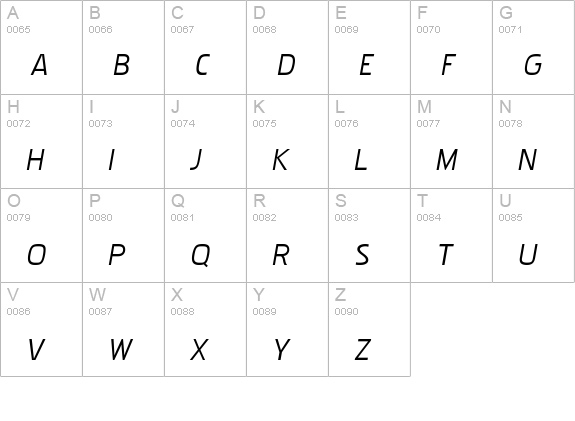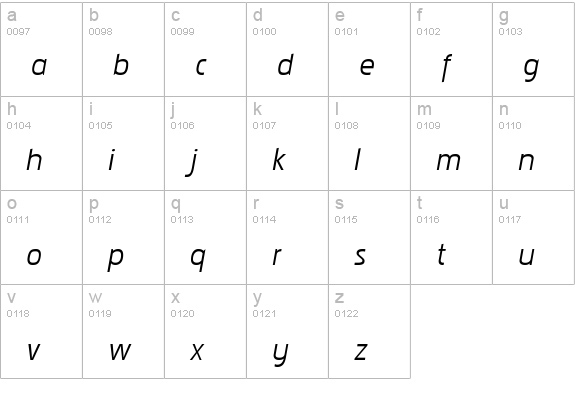
Pakenham Xp Italic is a distinctive, italic variant in the Pakenham typeface family \xE2\x80\x94 well suited to design and typography projects.
Introducing Pakenham Xp Italic font, a modern and stylish typeface designed to make your text stand out with elegance and flair. This versatile font features sleek, slanted letterforms that add a touch of sophistication to any project. Pakenham Xp Italic is perfect for branding, logos, headlines, and more, thanks to its unique and eye-catching design. Its smooth and flowing curves create a sense of movement and energy, making it perfect for dynamic and engaging designs. What's even better is that Pakenham Xp Italic is available for free download at FontsMarket.com. This means you can add this stunning font to your collection without any cost. Don't miss out on the opportunity to enhance your designs with this beautiful typeface today!